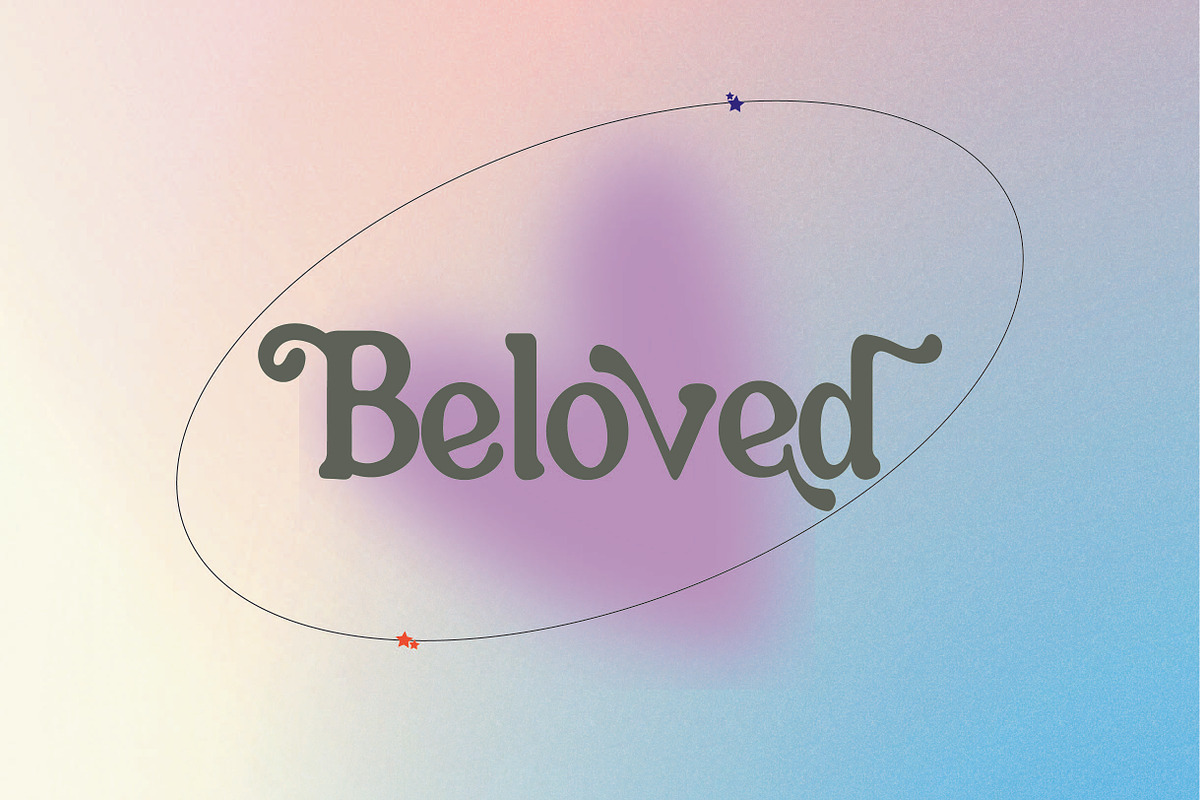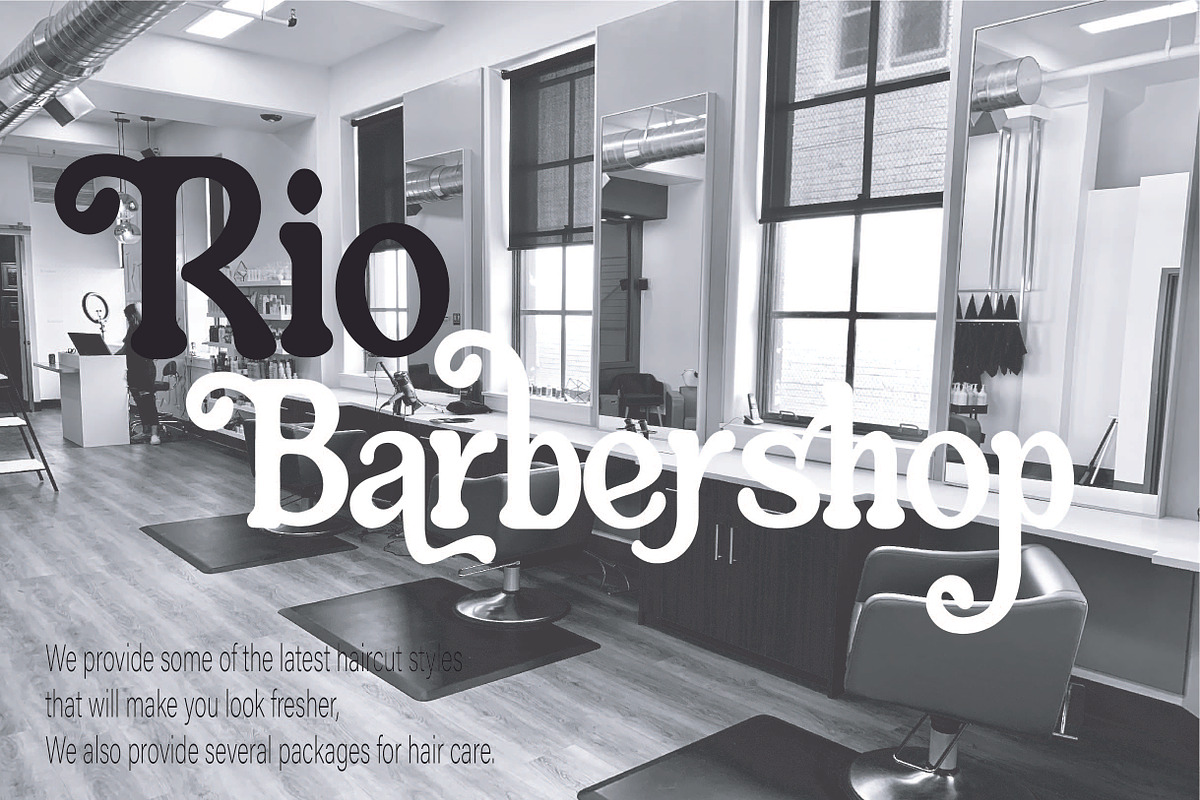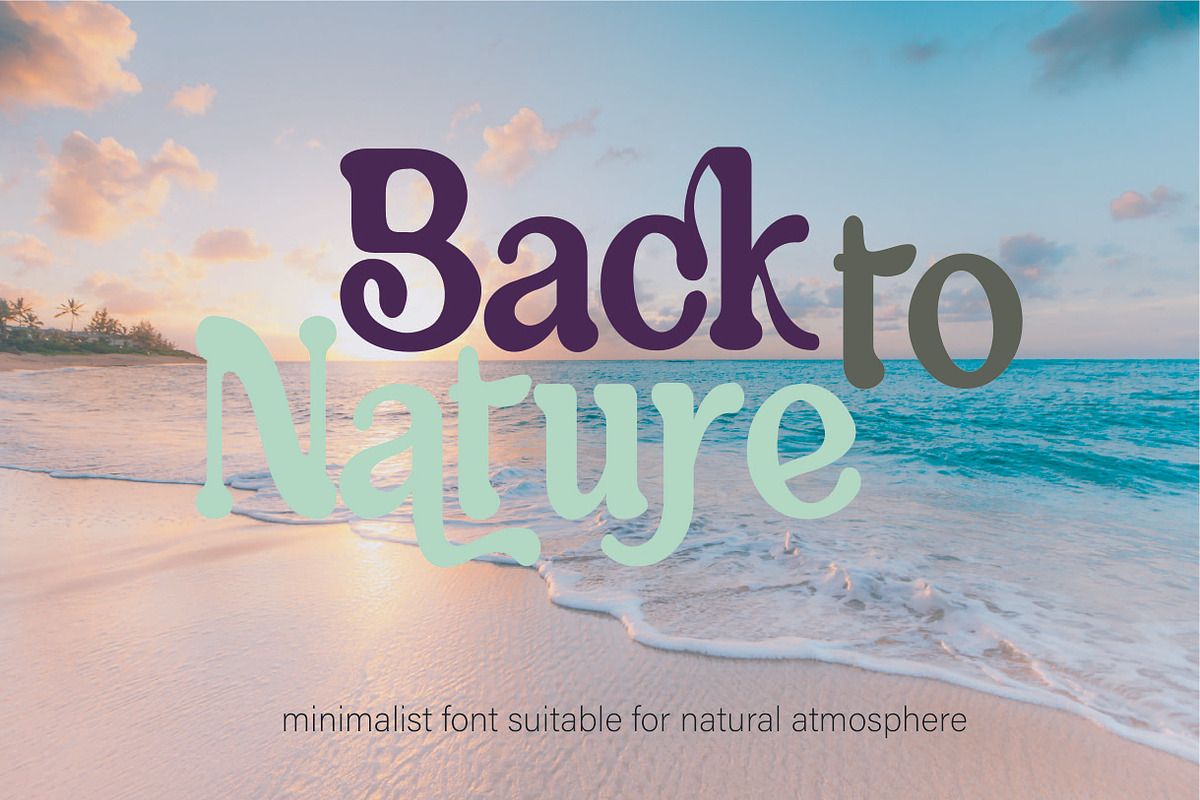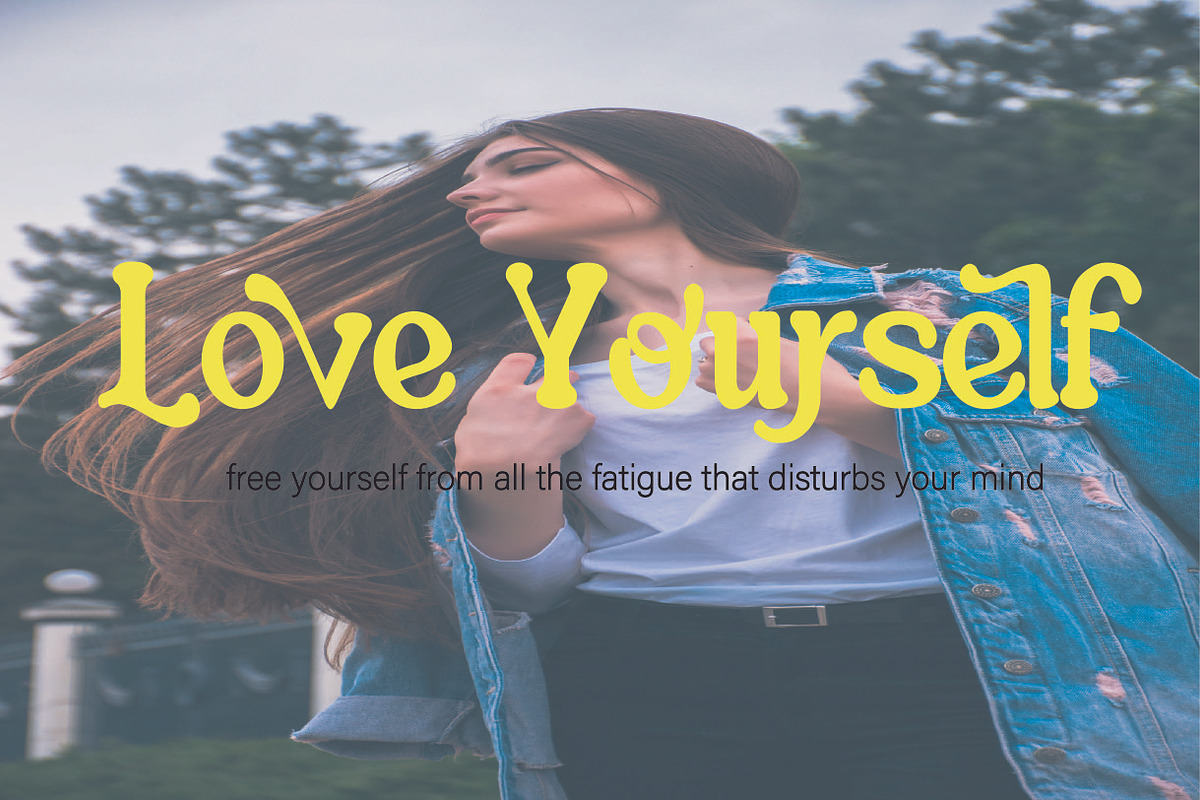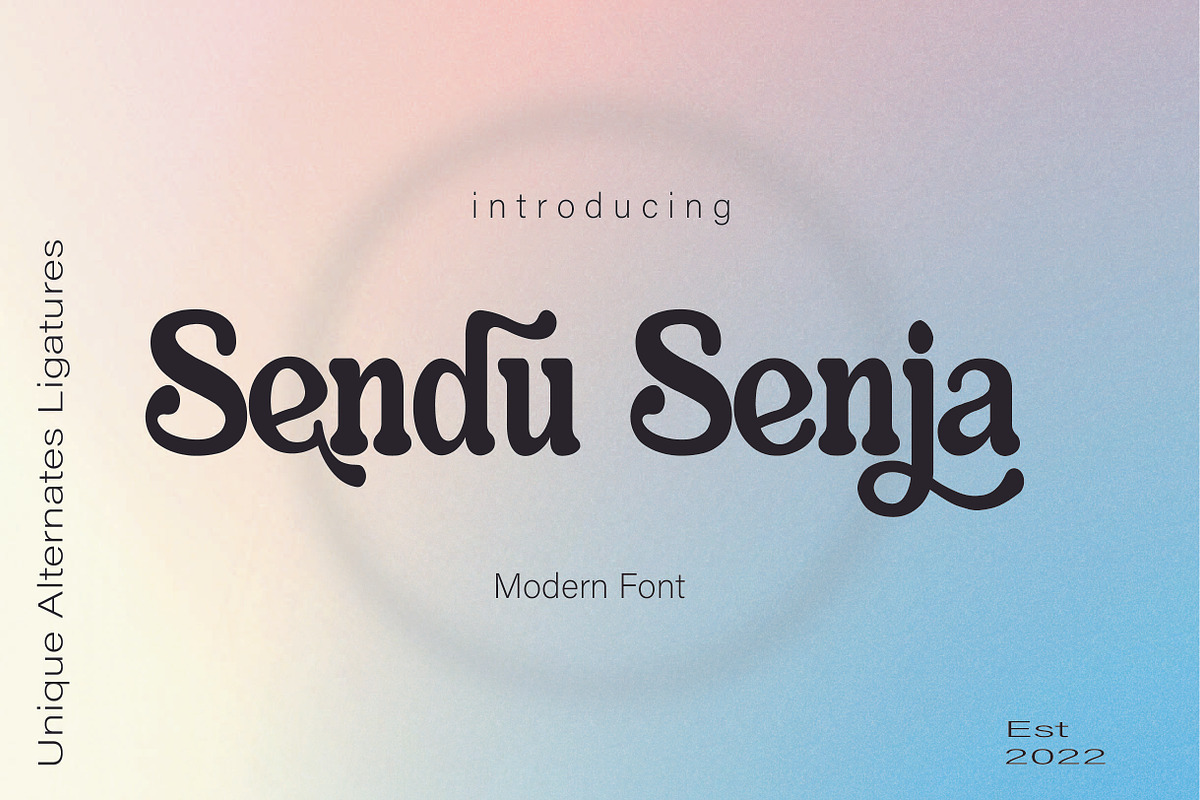
Sendu Senja
Sendu Senja is Sans Serif and modern font combined with a sweet touch and beautifully curved each letter. using a touch of soft curves so that it is pleasing to the eye
Sendu Senja Font Spirit is great for: Wedding invitations, fashion magazines, logos, signatures, and suitable for watermark photography.